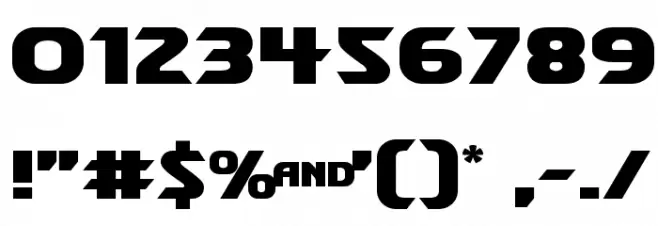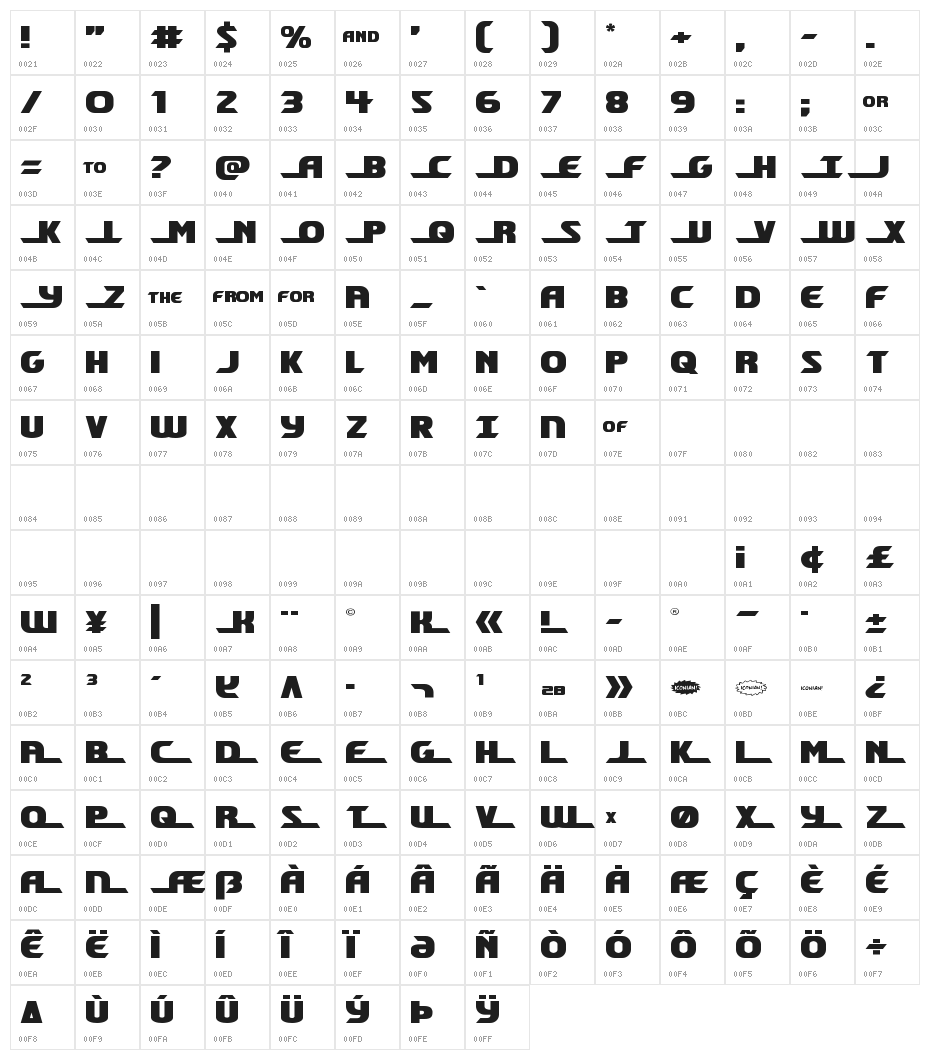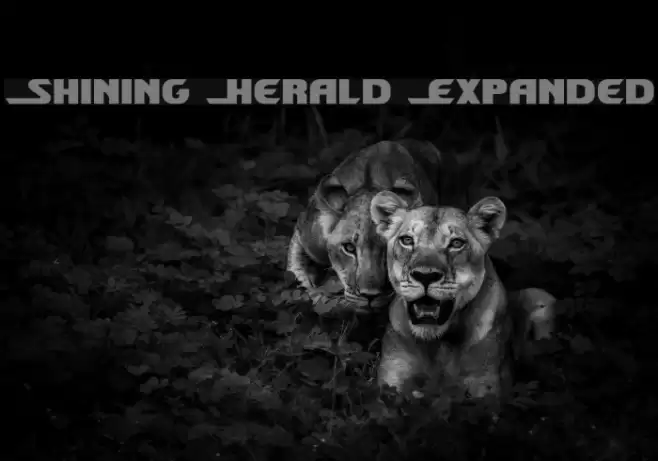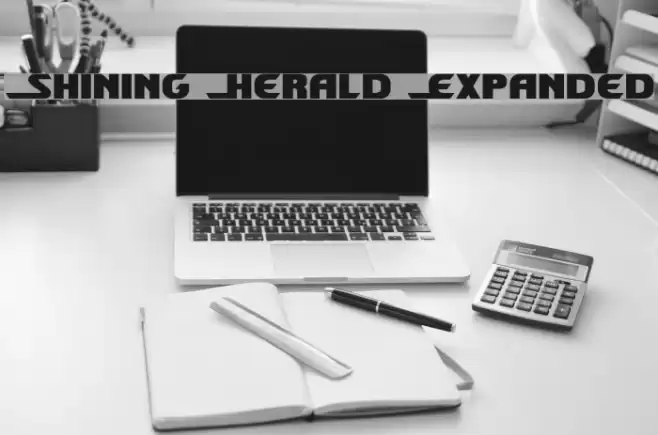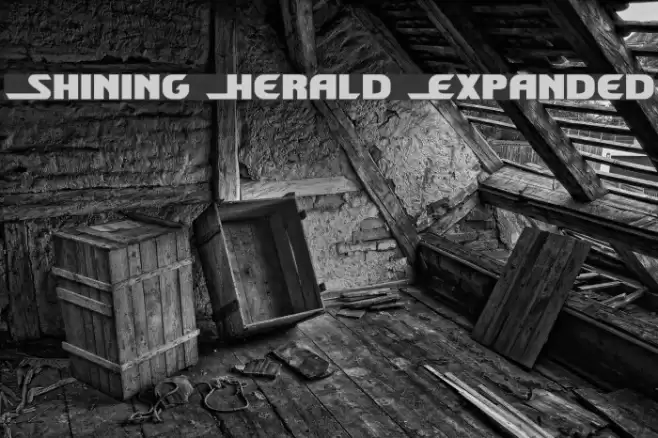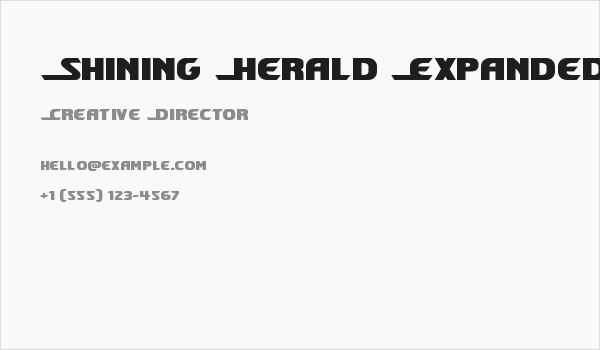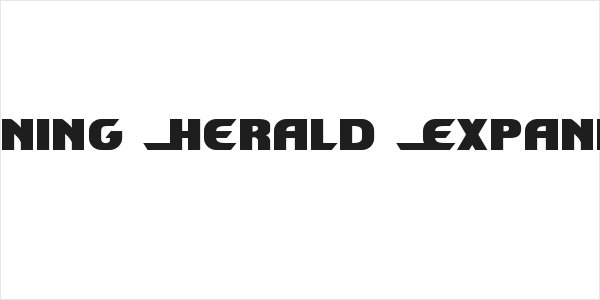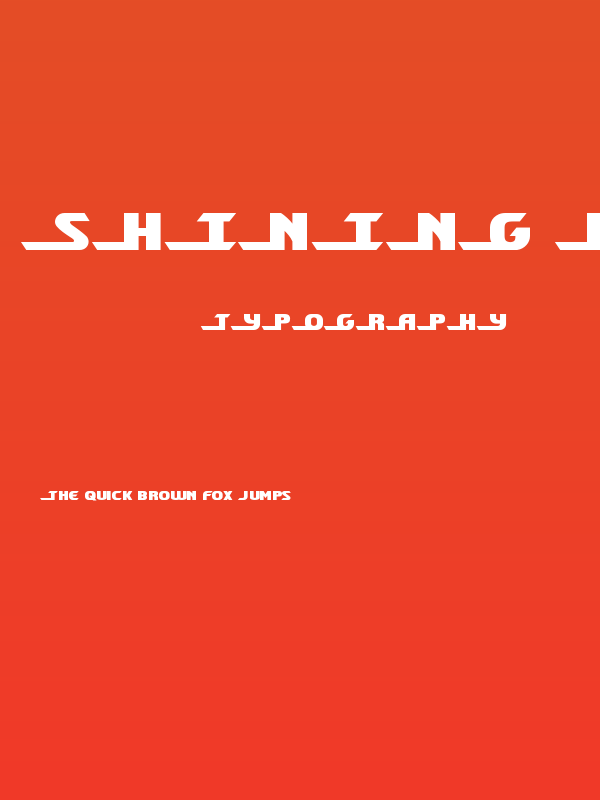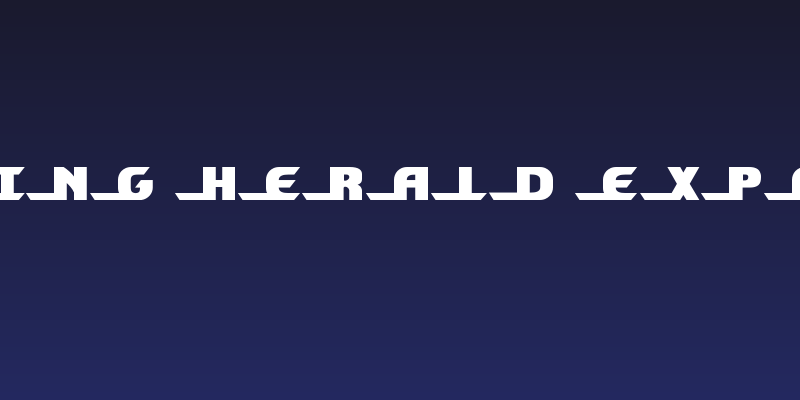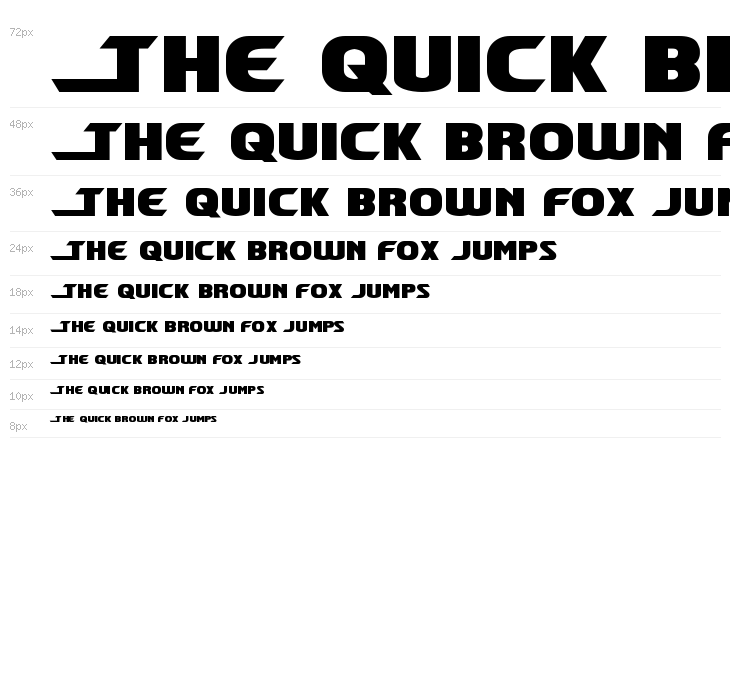
Shining Herald Expanded Font
Shining Herald Expanded Description
This font features a bold and striking design with a futuristic and geometric aesthetic. The uppercase letters are characterized by sharp angles and clean lines, creating a sense of movement and modernity. The lowercase letters maintain the same boldness, ensuring consistency across the typeface. Numbers are equally bold and geometric, making them stand out prominently. Special characters are designed to match the overall style, with a unique flair that complements the font's modern look. The font's expanded width gives it a commanding presence, making it ideal for attention-grabbing headlines and impactful designs.
| Proposed Projects | Ideal for sci-fi themed projects, modern branding, technology-related designs, and bold advertising campaigns. |